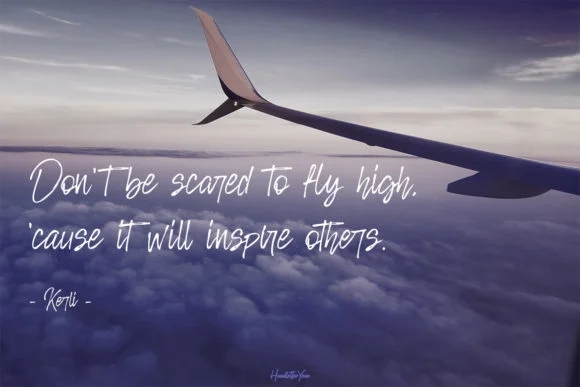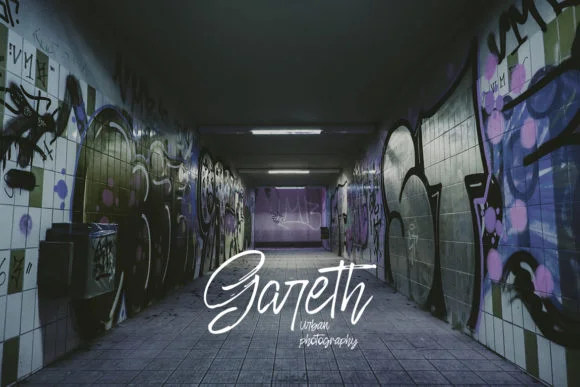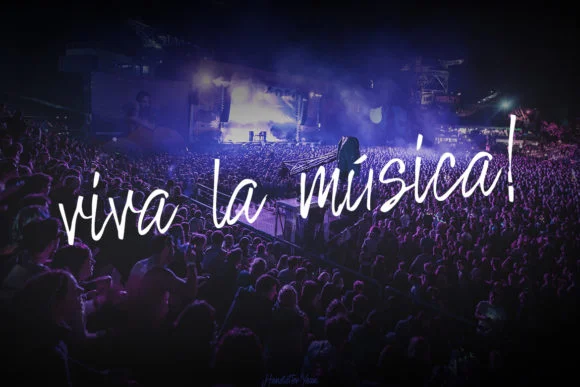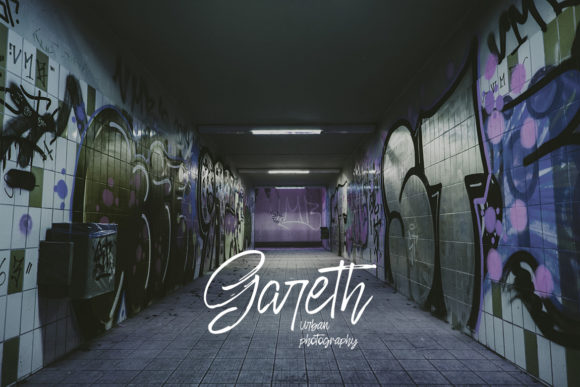
Rosianne Font
When a design brief calls for both refined proportions and careful stroke modulation and immediate visual impact, type choices matter — Rosianne answers that brief. The typeface brings an elegant, calligraphic sensibility to a broad range of creative disciplines, with the kind of restraint that lets content lead that holds up whether the work is print-first or screen-first.
In practice, Rosianne proves particularly effective for annual reports, web design, editorial layouts, greeting cards, poster creation. Designers reaching for it find that the type decisions feel resolved rather than laboured — a useful quality when client timelines are tight.
The range of applications extends to packaging design, logo design, bridal materials, perfume labels. That breadth is deliberate: the proportions and spacing were stress-tested across a wide range of mock briefs before the typeface was finalised.
Rosianne sits comfortably alongside both classic and contemporary typefaces in multi-font hierarchies. It takes direction rather than competing for attention — a quality that experienced designers know is harder to find than it appears.
Independent studios handling packaging and editorial work find Rosianne a reliable choice for projects that demand both personality and restraint. The design avoids the self-conscious quirkiness that dates quickly, settling instead for considered distinctiveness that holds up over time.